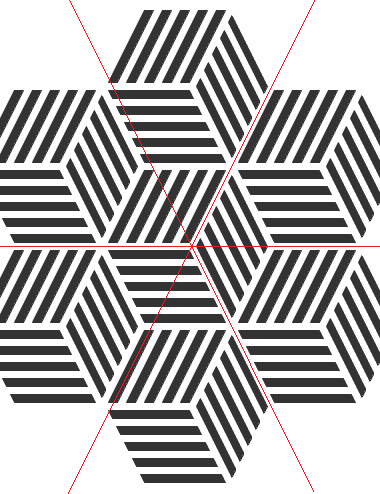
This is a work in progress, a project that started more than a year ago. Not every letters are ready, and the ones currently released, may change. I have all glyphs on paper, but my computer hardware capacity is very limited. Still, this early stage, an alphabet soup, could give a glimpse of the endless possibilities.
What an amazing level of skill and precision employed to produce such well-balanced characters.
Your designs never fail to delight and impress. 10/10 (even as a work in progress)
I haven't been around lately (and I do miss FS) and I was having trouble designing an op ad for the magazine I work for. So I decide to check out FS for ideas and look what I found just as I was logging in.
Virtuosic. Your LOTR-themed naming convention hits its stride here. ;)
The finished collection of alternates will indeed have unlimited application for logos and monograms as elegantly demonstrated by your Escher-esque æ.
I love the forced perspective illusion. Have you tried inverted-depth, popped-out alternate renderings for any of these glyphs? I mean something like this, except with the the glyph outline as the base layer instead of the solid rectangle used by Tylo.
The upcoming UC would be greeeeeeeeeat!
So, you've resurrected the Ring of Power from Mount Doom and you're using its power to bend dimensions into fonts. Well played, Mr. Frodo. Strong and solid forms.
Might I inquire about this font's stats in reference to your hardware capacity? 1)How many grid spaces high? 2)How many brick shapes used? 3)Any filters?
Wow love the effect Bravo great font!
Frankly, I was a bit tired of this impossible font. This is at least the third incarnation attempting the isometric projection look good enough. A previous version had same-width black and white stripes regardless of their angles (See the picture below. Note the cubes are slightly misaligned because the lack of true hexagonal geometry.) The present version is not perfect, but suitable to give the illusion of isometric perspective.
Glyphs with diagonal strokes raised the level of difficulty, and I'm not sure I found the best solutions for each of them.
@will.i.ૐ: I planned different flavors to make a small font family. Inverted depth was not on my list, but I'll think about it. I could only guess who would be more challenged: the designer or the reader.
@geneus1: This fontstruction is nothing special in terms of technical details. No filters, 69 bricks height, 13 different bricks including 4 custom made.
Its good. But, the space needs to be wwwwaaaaaaaaaaaayyyyyyy bigger.
Now THIS is what a 3D font should look like. Beautiful! 10/10.
The sample showing ae is terrific!
Although it doesn’t help much to tell you at this point, I would have started this fontstruction with 2x2 filters. This simultaneously cuts down on the amount of brick shapes and the amount of bricks used in each glyph, usually by a factor of four. This also reveals an additional benefit that is immediately recognizable on slower machines. By using only a quarter of the amount of bricks that you would use in 1x1 scale, the software performs faster while copying and pasting, scrolling, and moving from glyph to glyph because the extraneous bricks aren’t there to slow it down. But you would have to paint the bricks efficiently with minimal brick overlap. Working in 2x2 efficiently will also reduce the amount of data that is saved with the fontstruction, thereby speeding up its load and save times.
Another one on Pinterest. It is more like the NE 04 version. Looks great.
2, 4, 6, and 7 arent facing the same direction as the other numbers
Looking at a font like this at a certain point can really create an optical illusion...